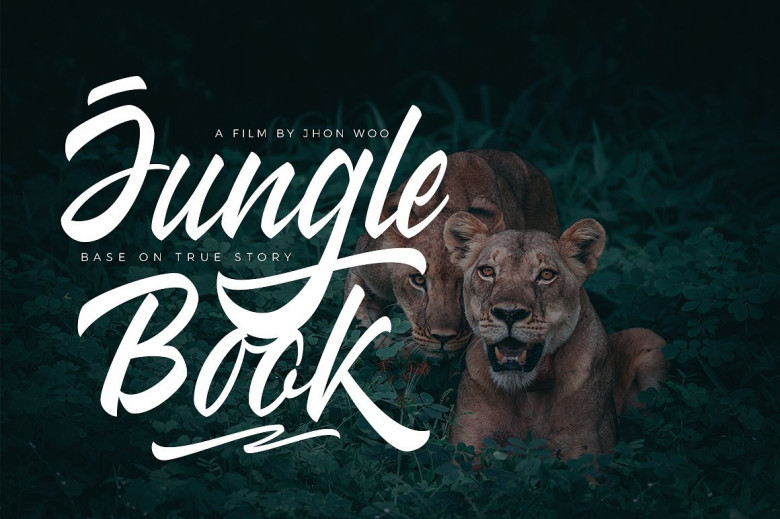
Wakanda Script Font
Continued is a design from Creatype Studio Co. Introducing Wakanda. Wakanda – a stylish & modern handletter script typeface. This font will looks awesome and amazing in many way to your latest project. Wakanda is perfect for many different project such as logos & branding, invitation, stationery, wedding designs, social media posts, advertisements, product packaging, product designs, label, photography, watermark, special events or anything.